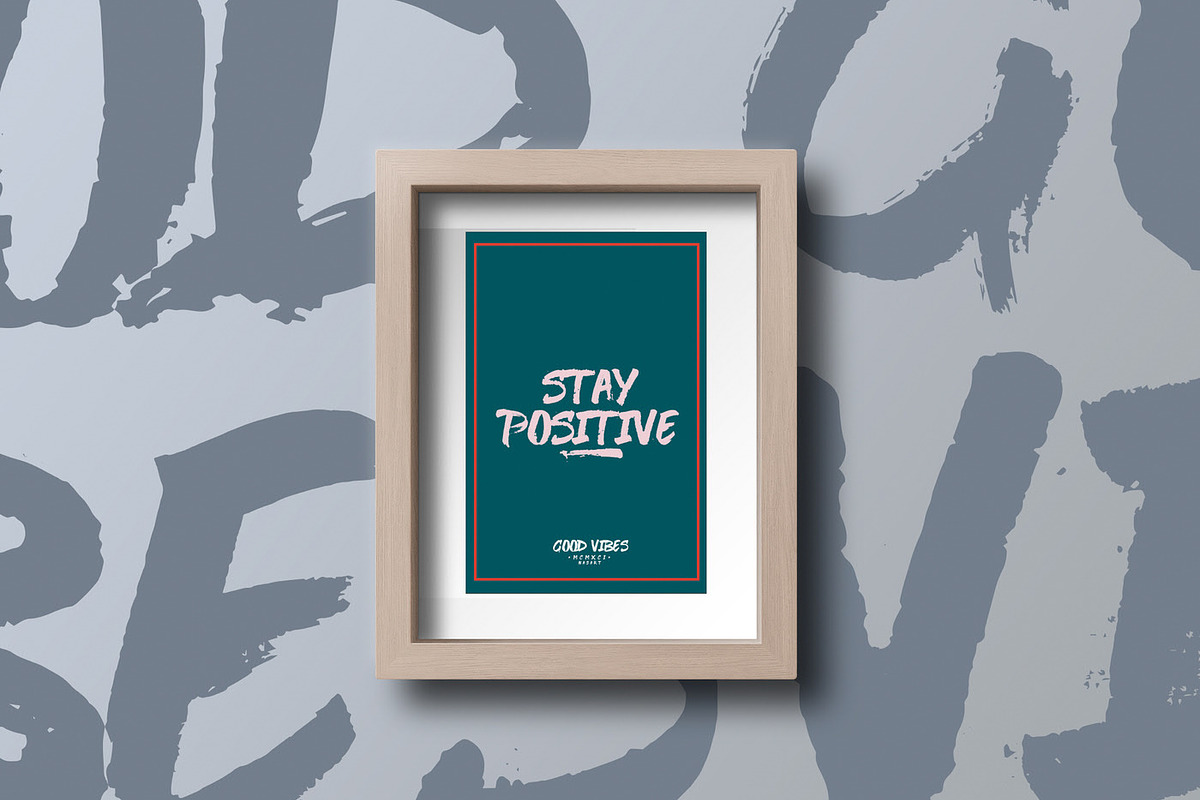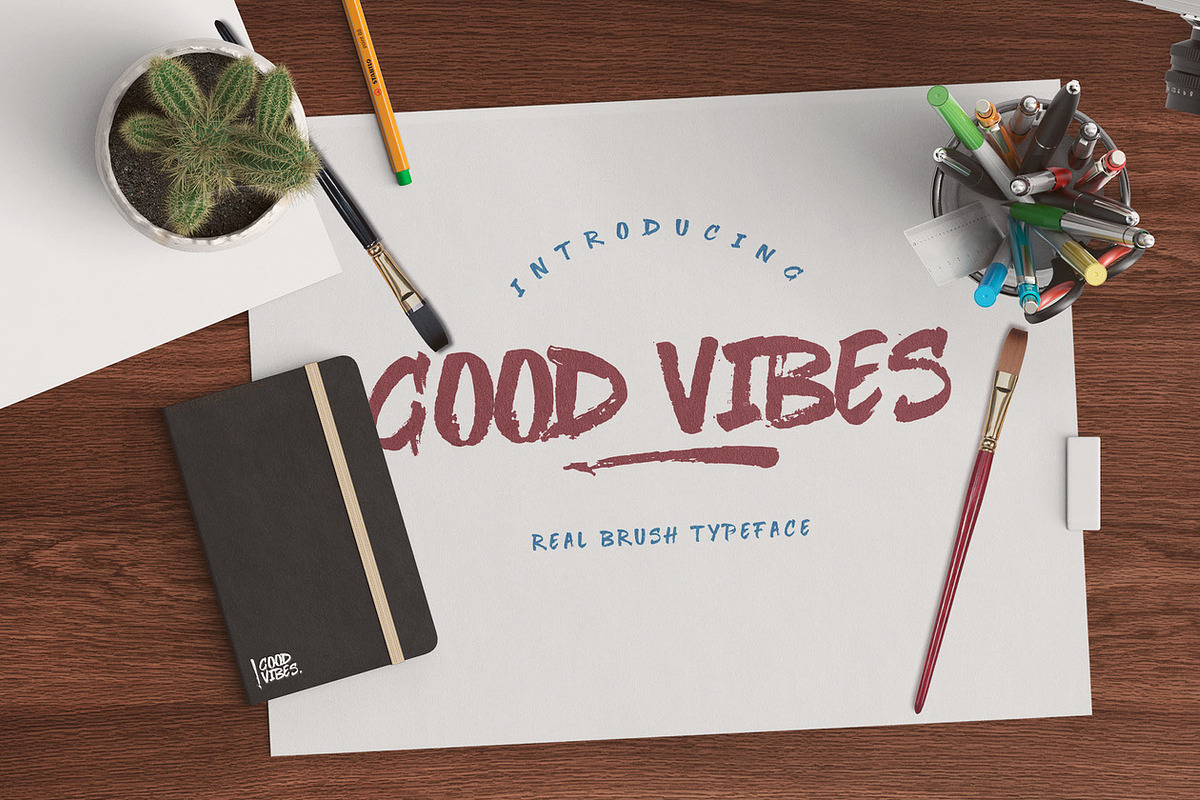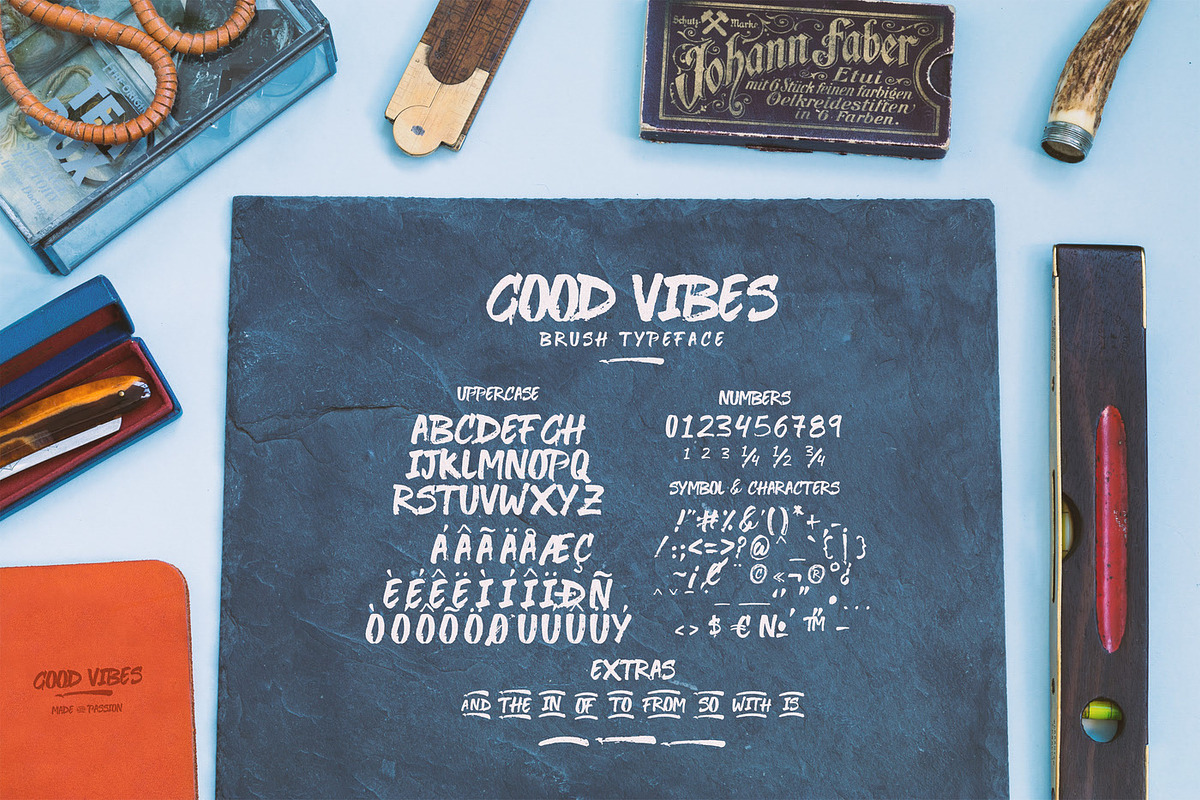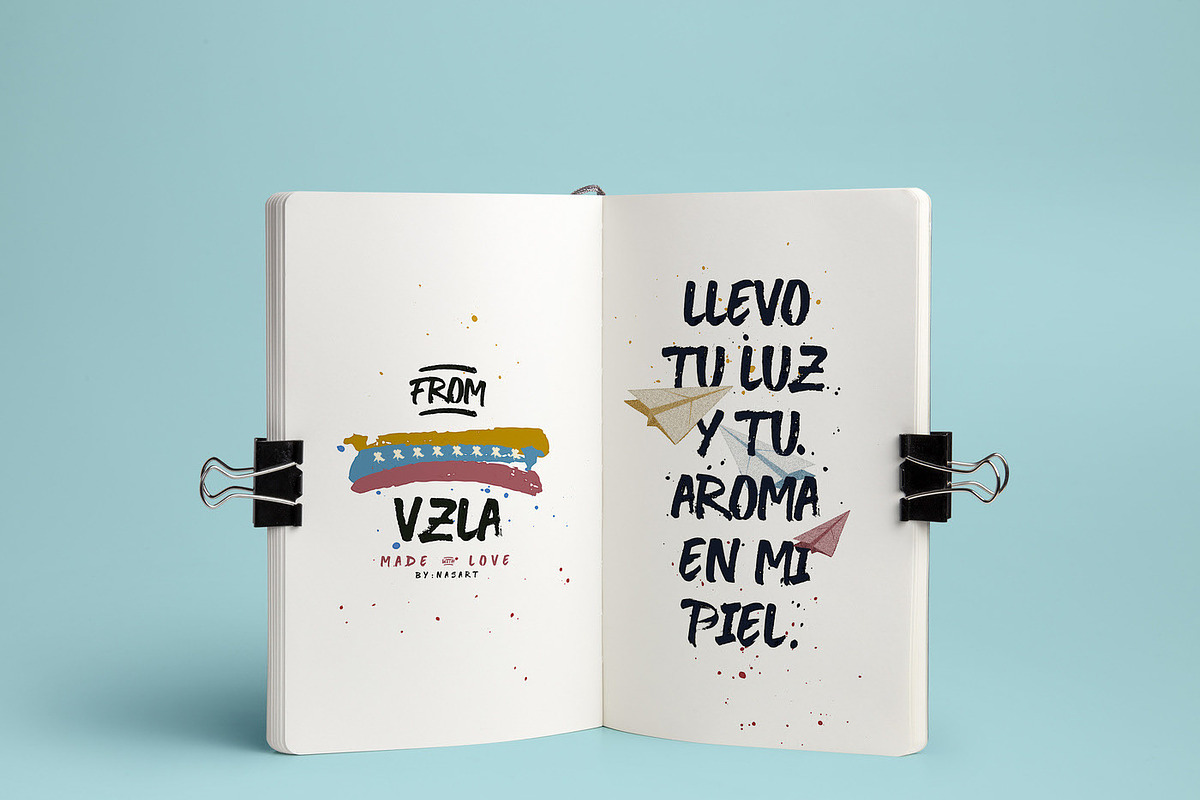
Good Vibes - Real Brush Typeface
A good typography created with love for you, can be used in logos, posters, postcards, graphic arts in general. Good vibes is created from a brush stroke from there its effect finished brush type. Good vibes for you. Thank you!
Good Vibes includes several extras to speed up your creative process by opening the glyphs in any vectorization program, Adobe Illustrator, Freehand, Corel Draw and others.